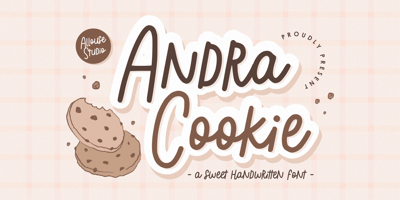
Andra Cookie Font Family was designed by Fachrizal Yusuf and published by Allouse Studio. Andra Cookie contains 1 styles and family package options. Proudly Presenting, Andra Cookie A Sweet Handwritten FontAndra Cookie is perfect for any titles, logo, product packaging, branding project, megazine, social media, wedding, or just used to express words above the background.Andra Cookie also come with Multi-Lingual Support.Enjoy the font, feel free to comment or feedback, send me PM or email. Thank You!